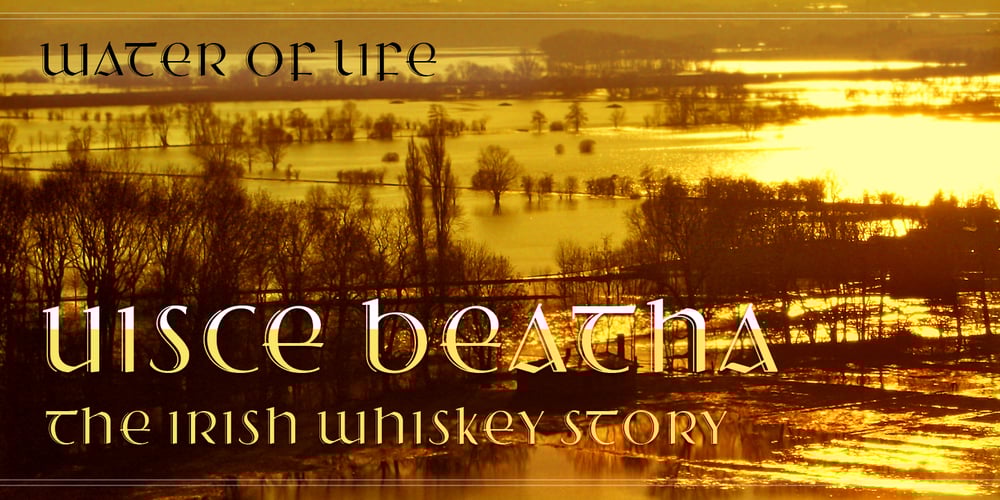
Ardagh Font Family was designed by Andreas Stötzner and published by SIAS. Ardagh contains 1 styles and family package options. Ardagh is the younger ›Irish brother‹ of Arthur Sans. I thought it was about time for a new Art-Deco exercise in Irish type. Ardagh will adorn your title settings and headings, ennoble a new menu card, festivity invitation or label design. For a perfect combination with other languages in mixed settings, go to the Arthur Sans or Arthur Cabinet series. Ardagh matches Arthur Sans Medium and Arthur Cabinet Diamond, Onyx, Pearl and Timber in proportions and stroke weight. • Please note that ARDAGH is a capitals-only product! For more new wonderful Irish fonts look at Andron Gaeilge and Hibernica!